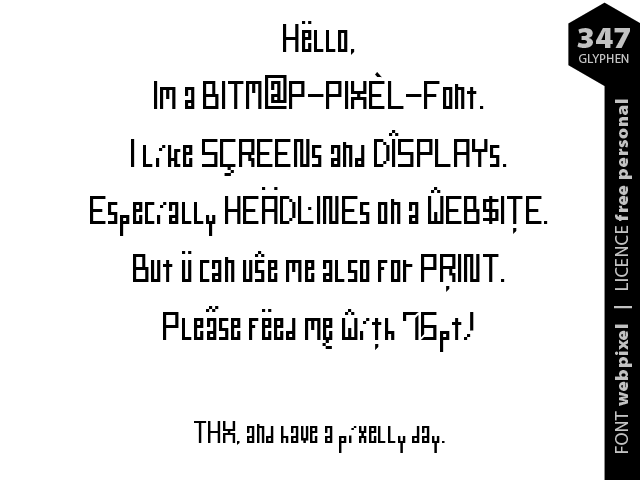
Preview and download WebPixel Font. Created by Manuel Viergutz | Typo Graphic Design in Bitmap help styles with Free for personal use license.
Font name: | WebPixel |
Author: | Manuel Viergutz | Typo Graphic Design |
Headline Font / Display Font / Pixel Bitmap Font "Web Pixel" with 1 stlyes (R) & 347 glyphs inkl. accents & € INFO If you want to use this font for commercial projects, please contact me: manuel.viergutz[at]gmx.de or donate an amount greater-than-or-equal EUR 15 / $ 19 (for commercial licence). I also appreciate it if you send me links /images of your (non)-commercial work featuring this font. |